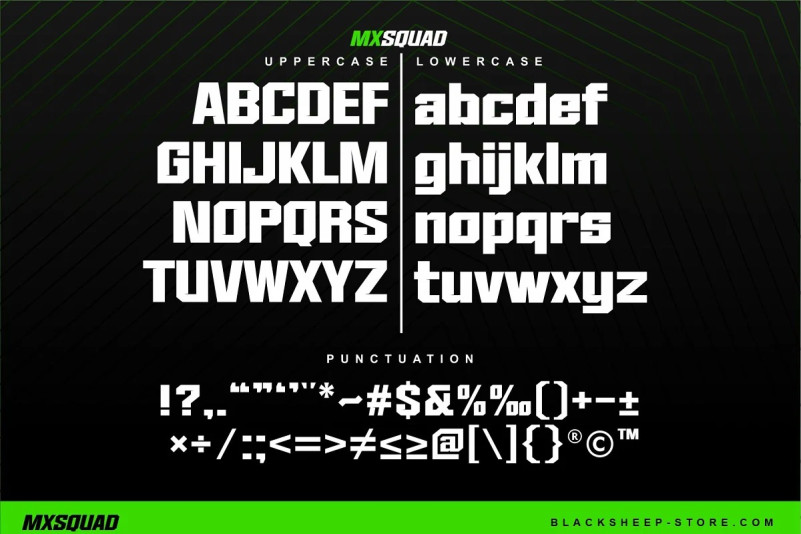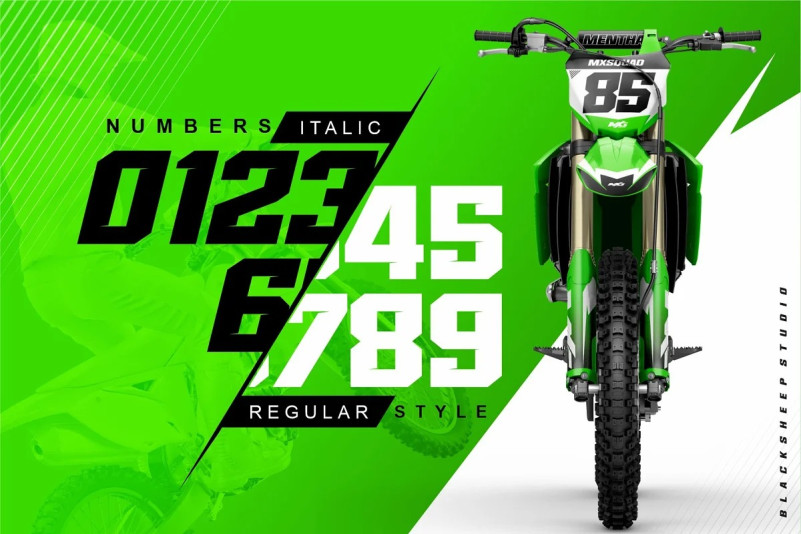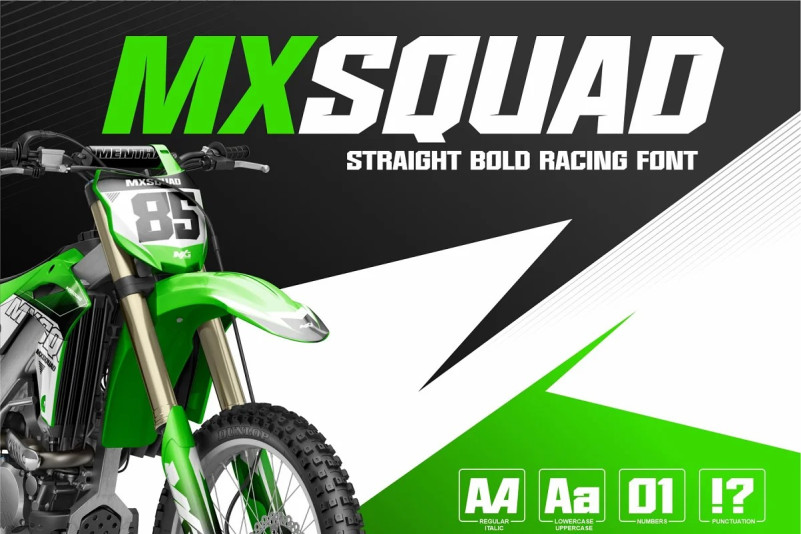
Mxsquad Font
MXSQUAD Display Font is a strong and sporty serif typeface to make your titles and racing numbers look more dashing
In addition to motocross designs, this typeface is also suitable for jersey designs, basketball, logos, automotive brands, games, posters, etc.
The MXSQUAD comes in Regular and Italic styles, with 26 standard characters, the numbers 0-9, and some important glyphs.